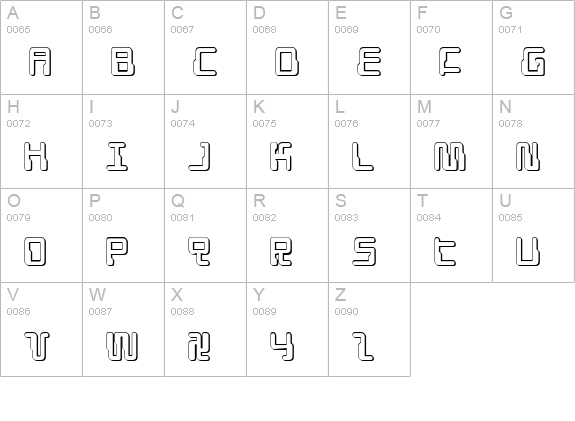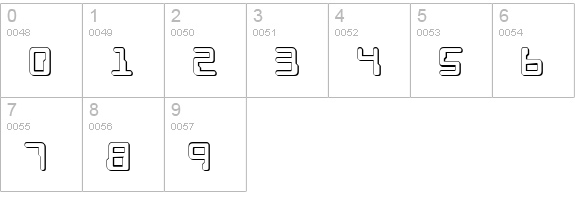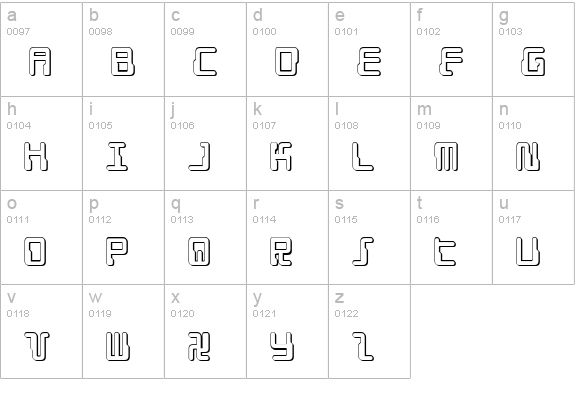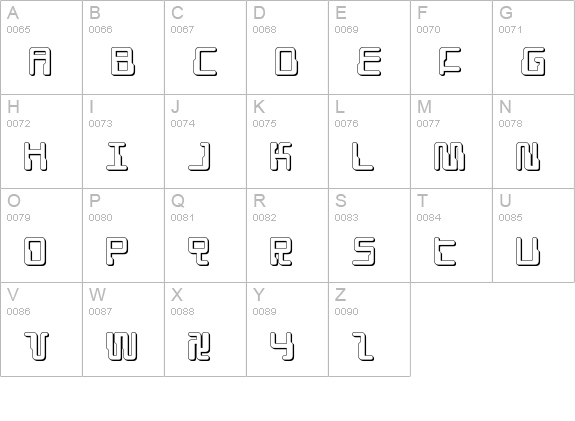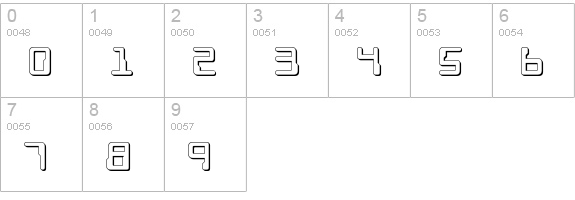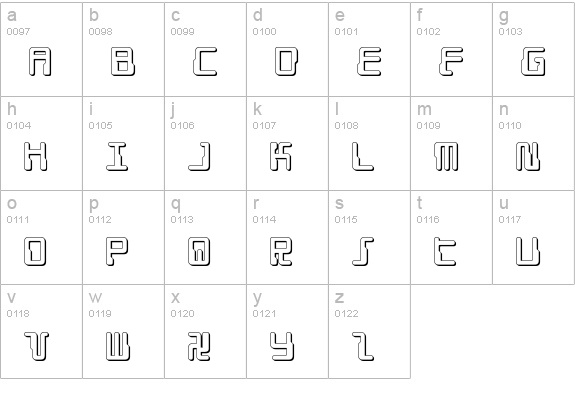
Immerse yourself in a futuristic world of cutting-edge design with the Droid Lover 3D font. This unique and modern font is perfect for adding a touch of tech-savvy sophistication to your projects. With its sleek lines and three-dimensional effect, Droid Lover 3D font is sure to captivate audiences and make a bold statement. And the best part? Droid Lover 3D font is completely free to download at FontsMarket.com! That's right, you can elevate your designs without breaking the bank. So why wait? Dive into the world of Droid Lover 3D font and unleash your creativity today.